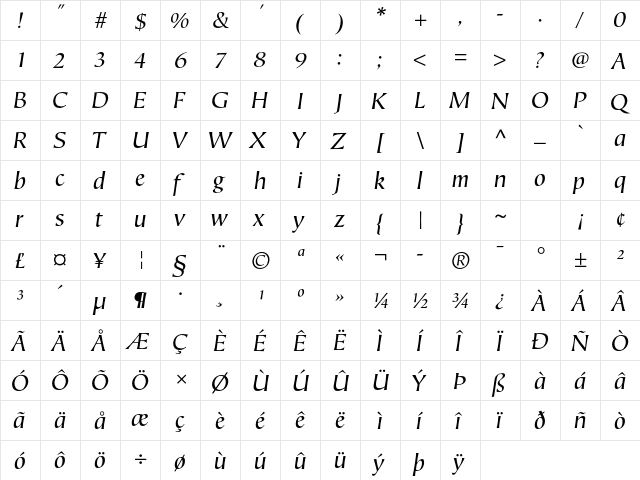
Mariposa Sans Std Book Italic
| Foundry | International Typeface Corporation |
| Designer | Philip Bouwsma |
Design Context for Mariposa Sans Std Typeface
Mariposa Sans Std takes a measured approach to typography — its balanced proportions and neutral character make it a reliable workhorse for both digital and print work. Its italic angle brings a sense of urgency and motion to the letterforms.
Pro Tip: Try Mariposa Sans Std for annotation and caption copy alongside an upright companion — the contrast in angle creates a dynamic but ordered typographic system.